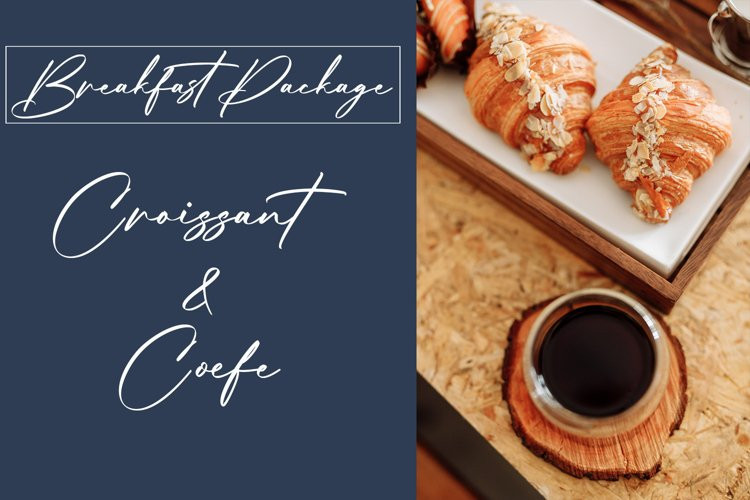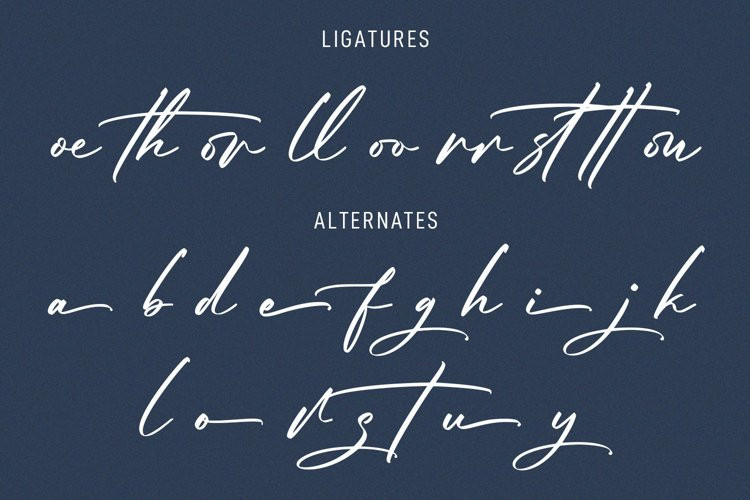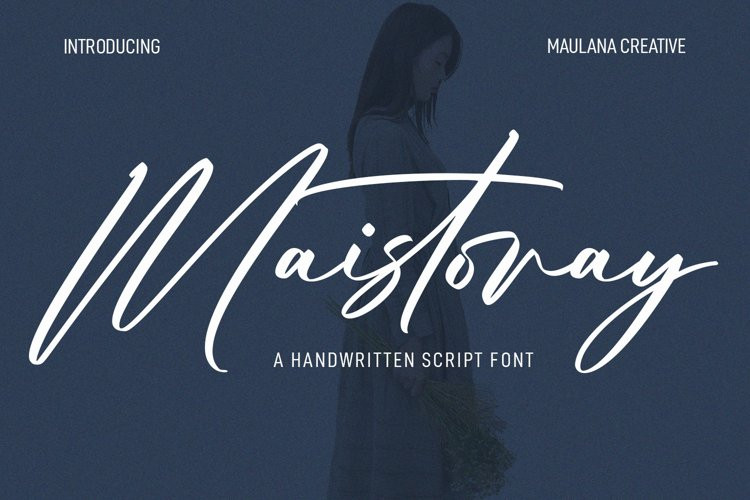
Maistoray Font
Maistoray FontMaistoray is an expressive signature script font. With light high contrast stroke, fun character with a bit of ligatures and alternates. To give you an extra creative work. Maistoray font support multilingual more than 100+ language. This font is good for logo design, Social media, Movie Titles, Books Titles, a short text even a long text letter and good for your secondary text font with sans or serif. Make a stunning work with Maistoray font.